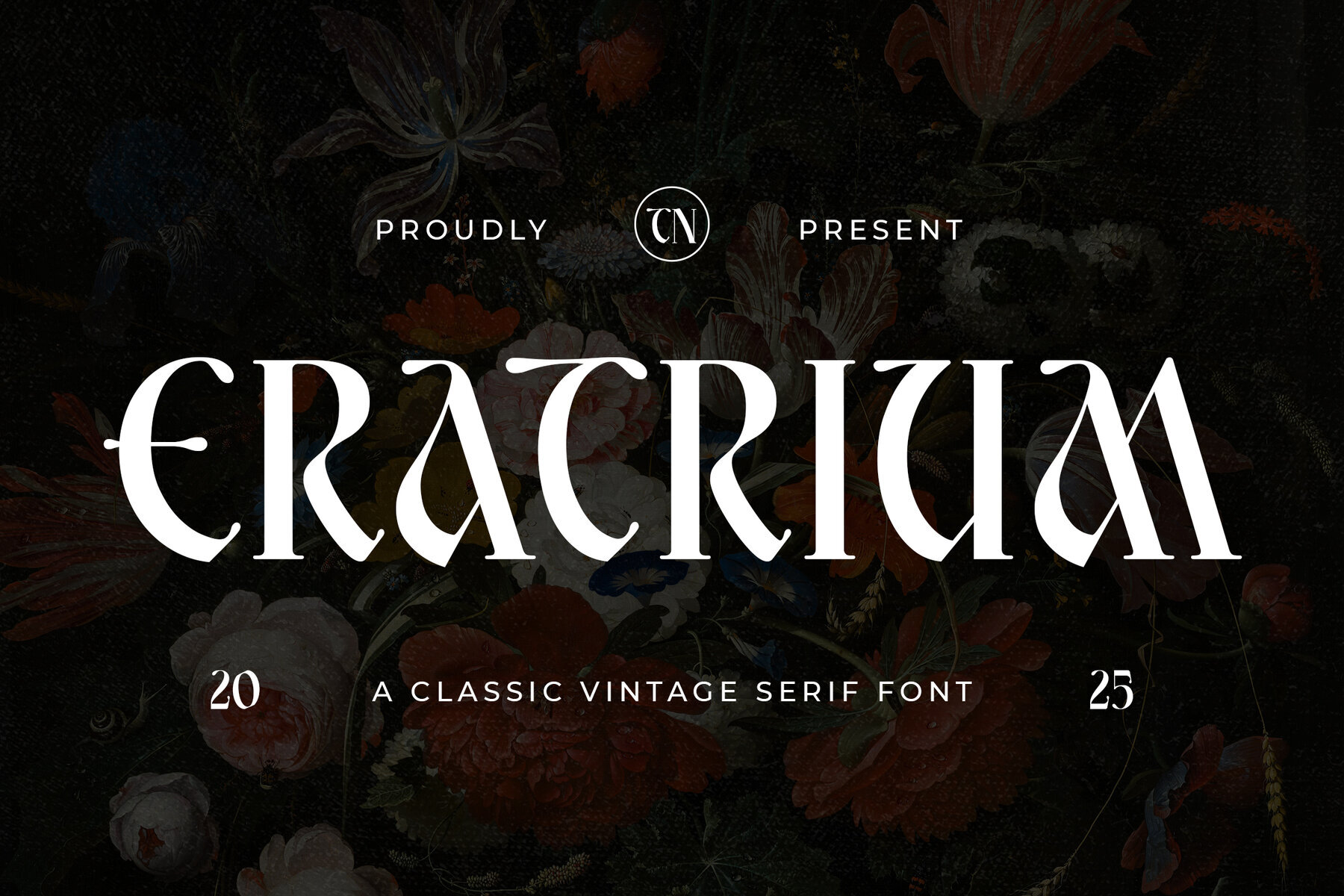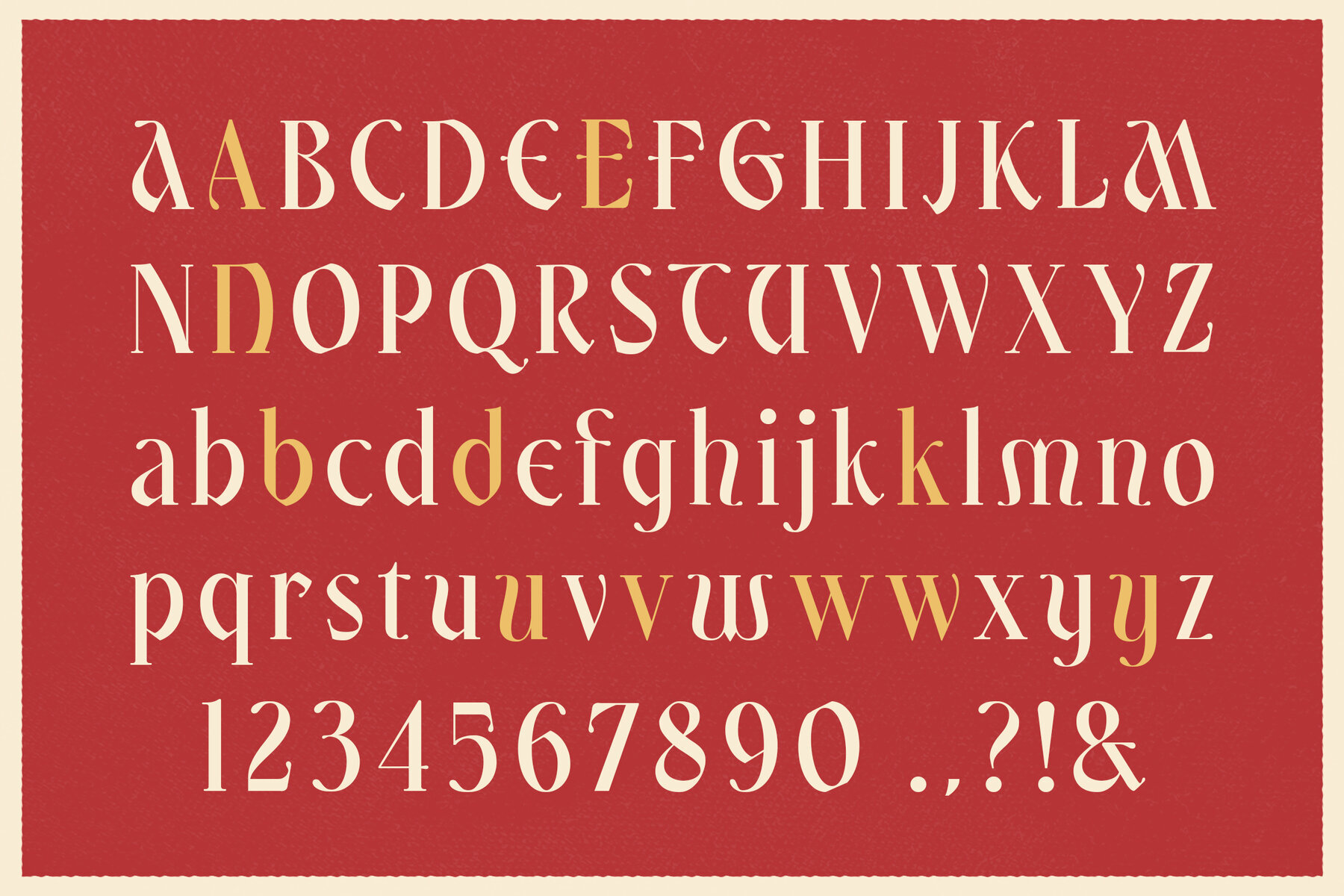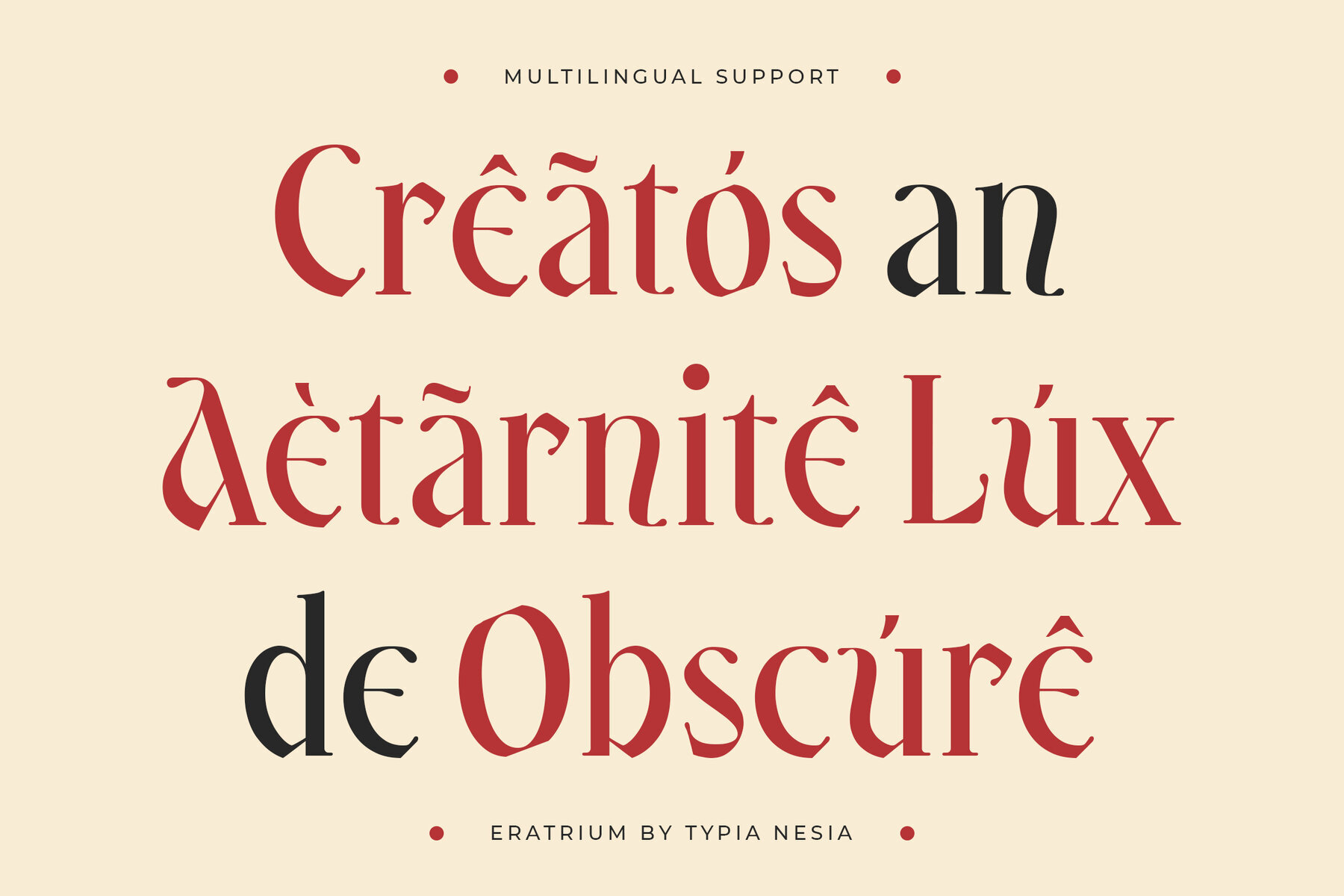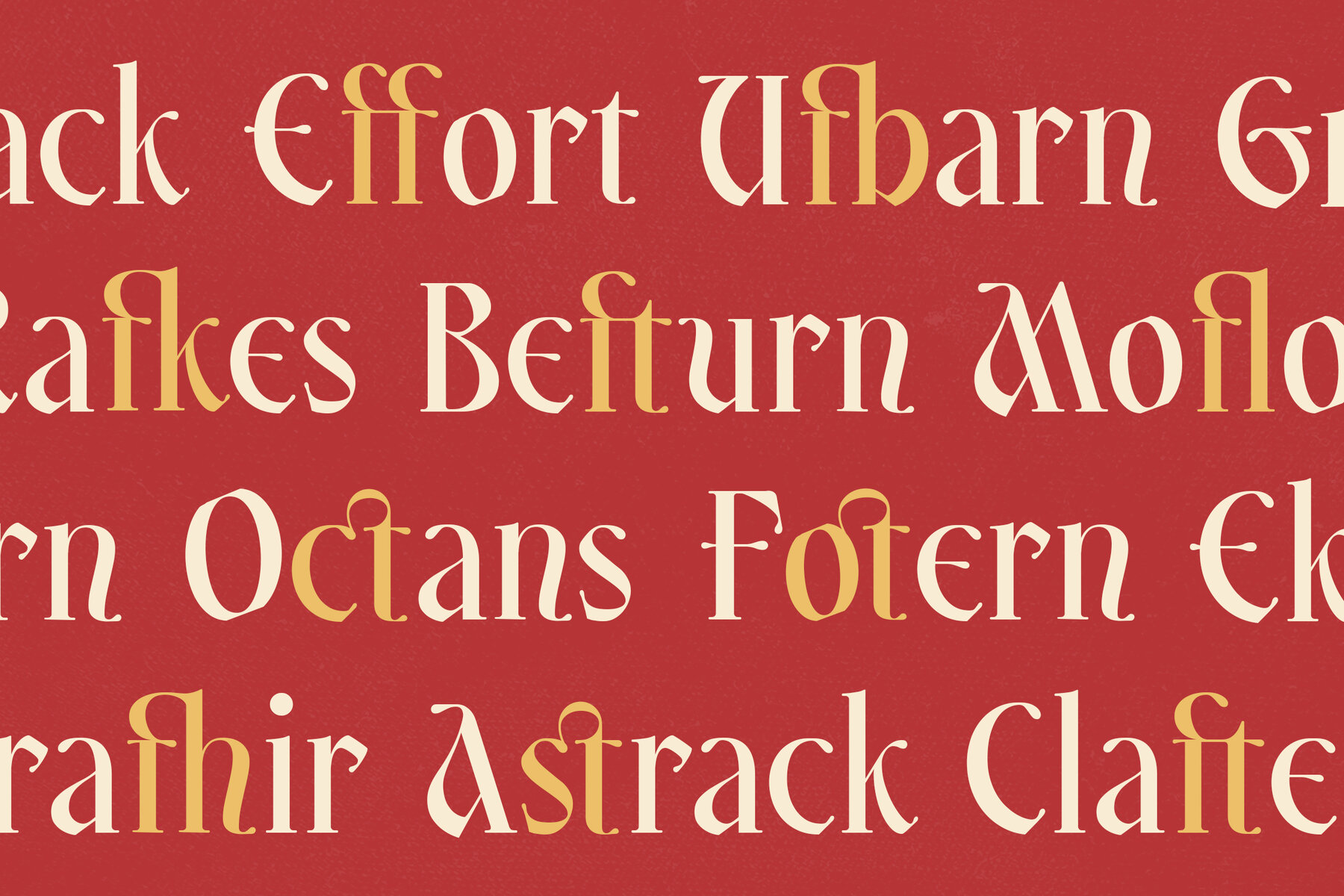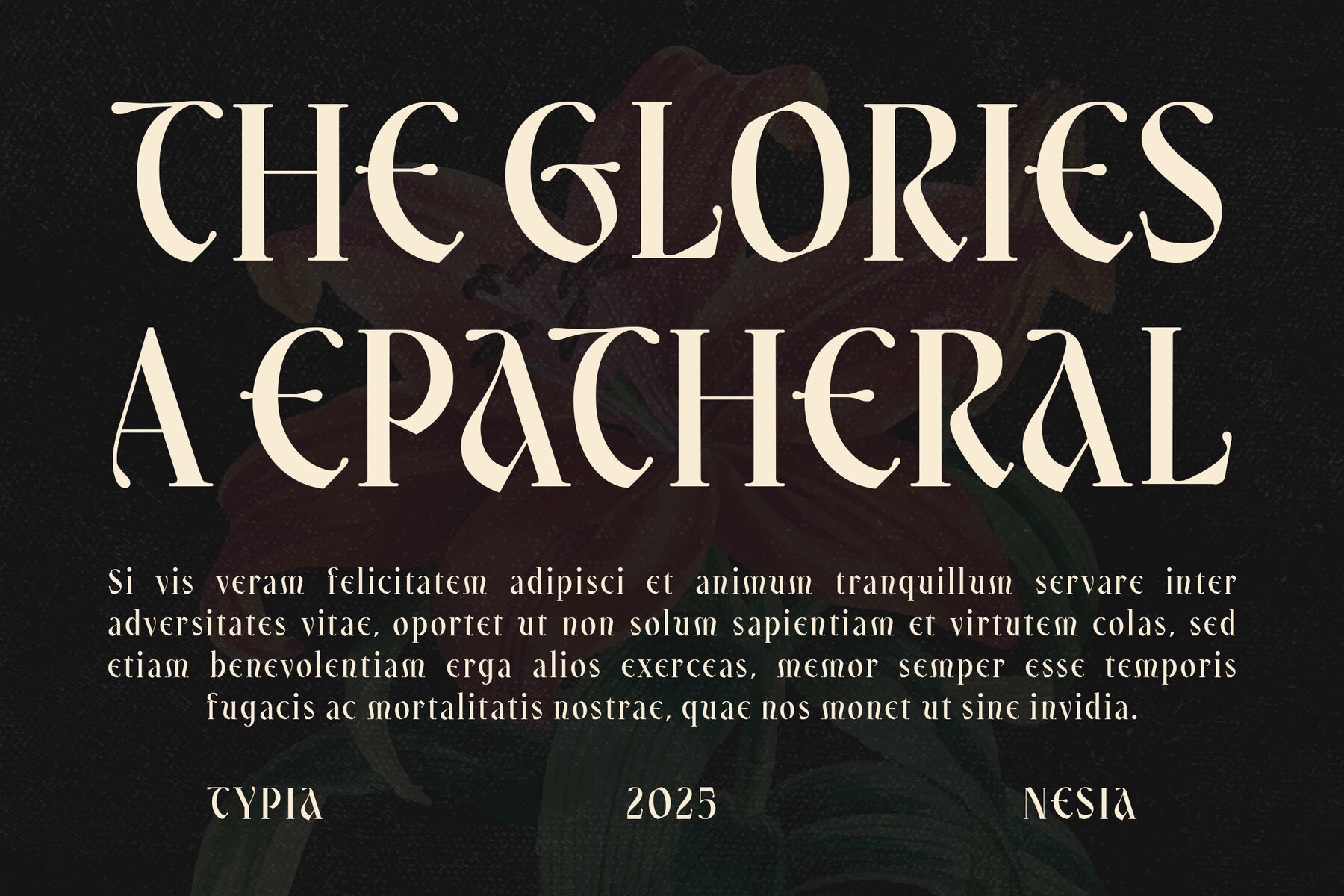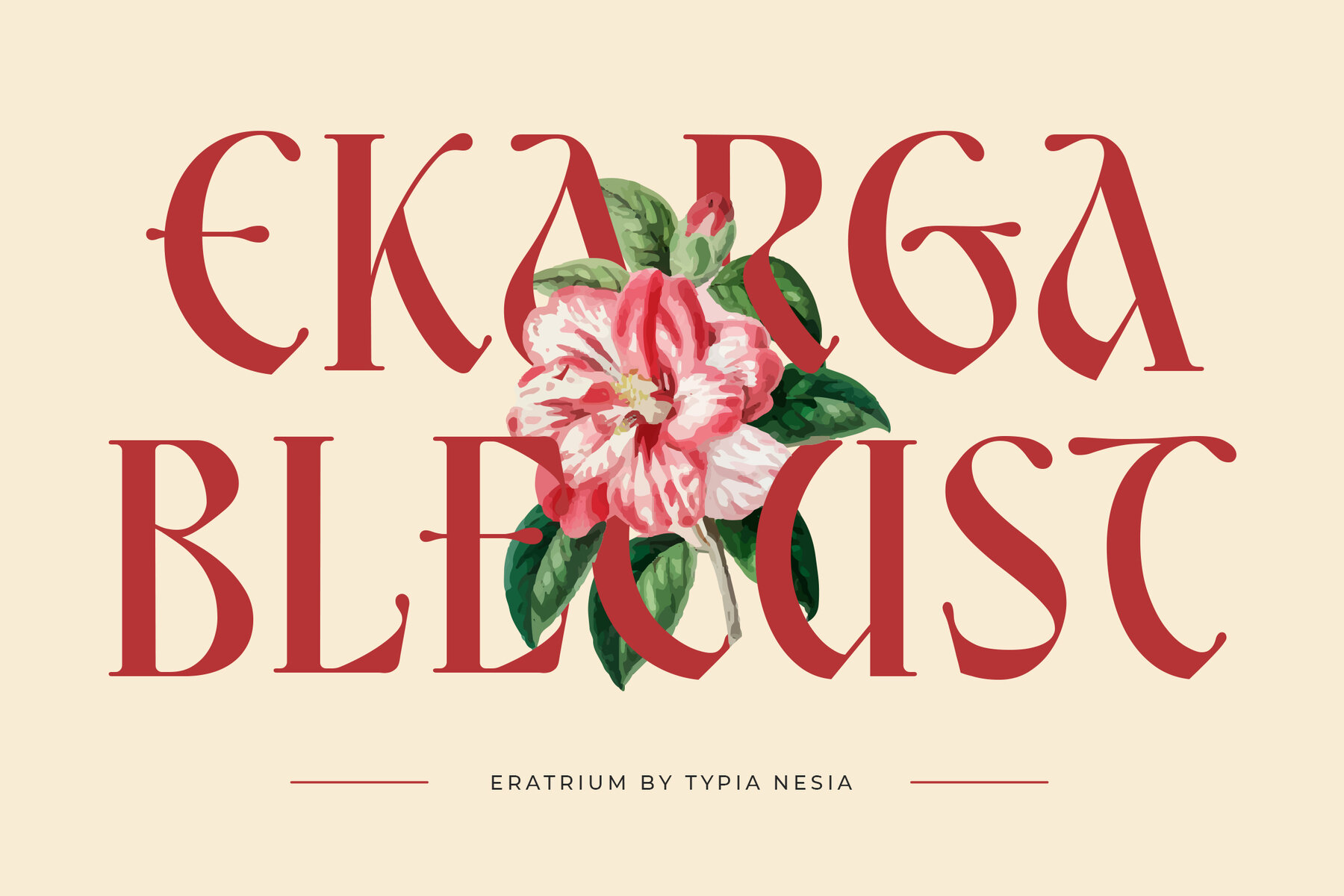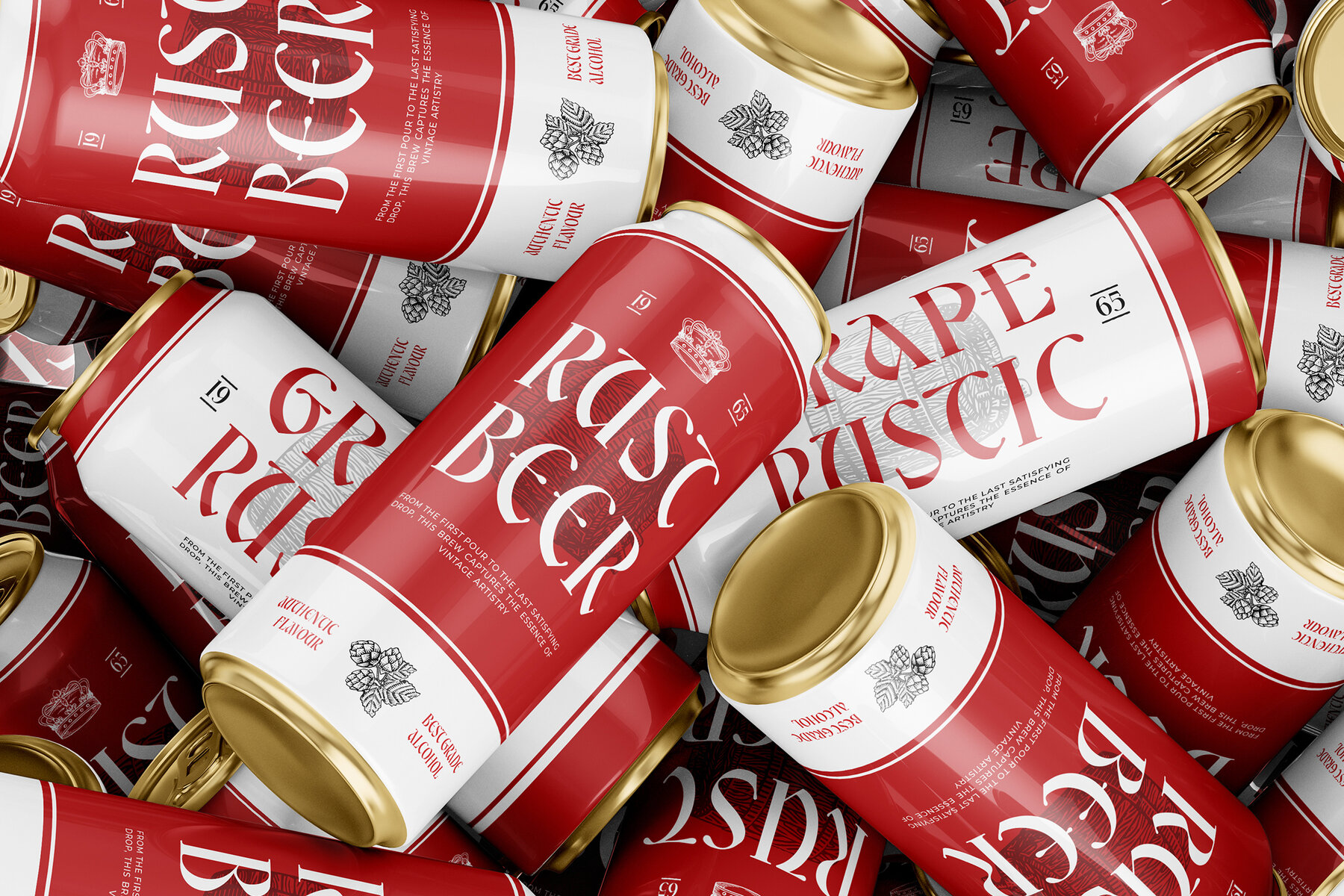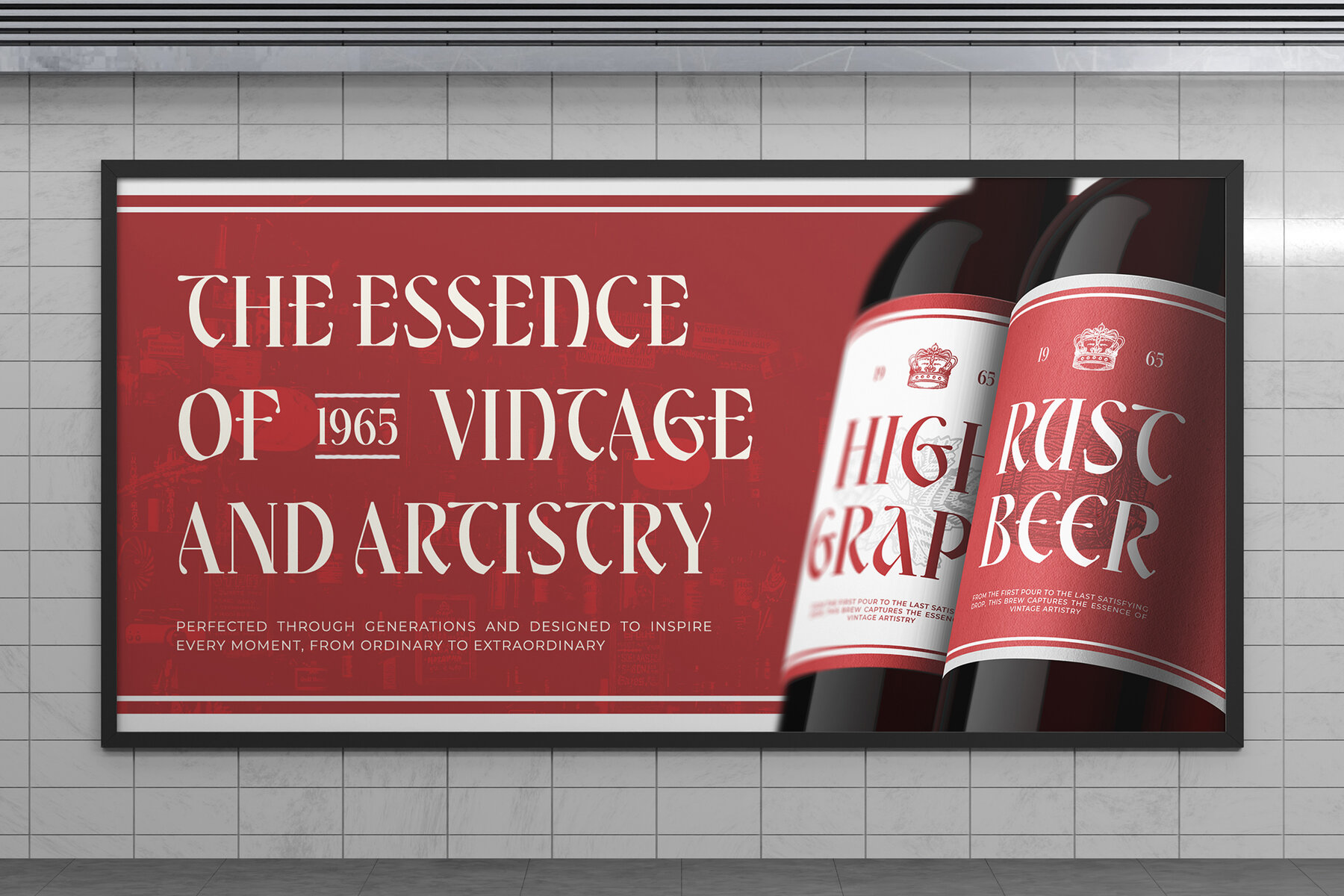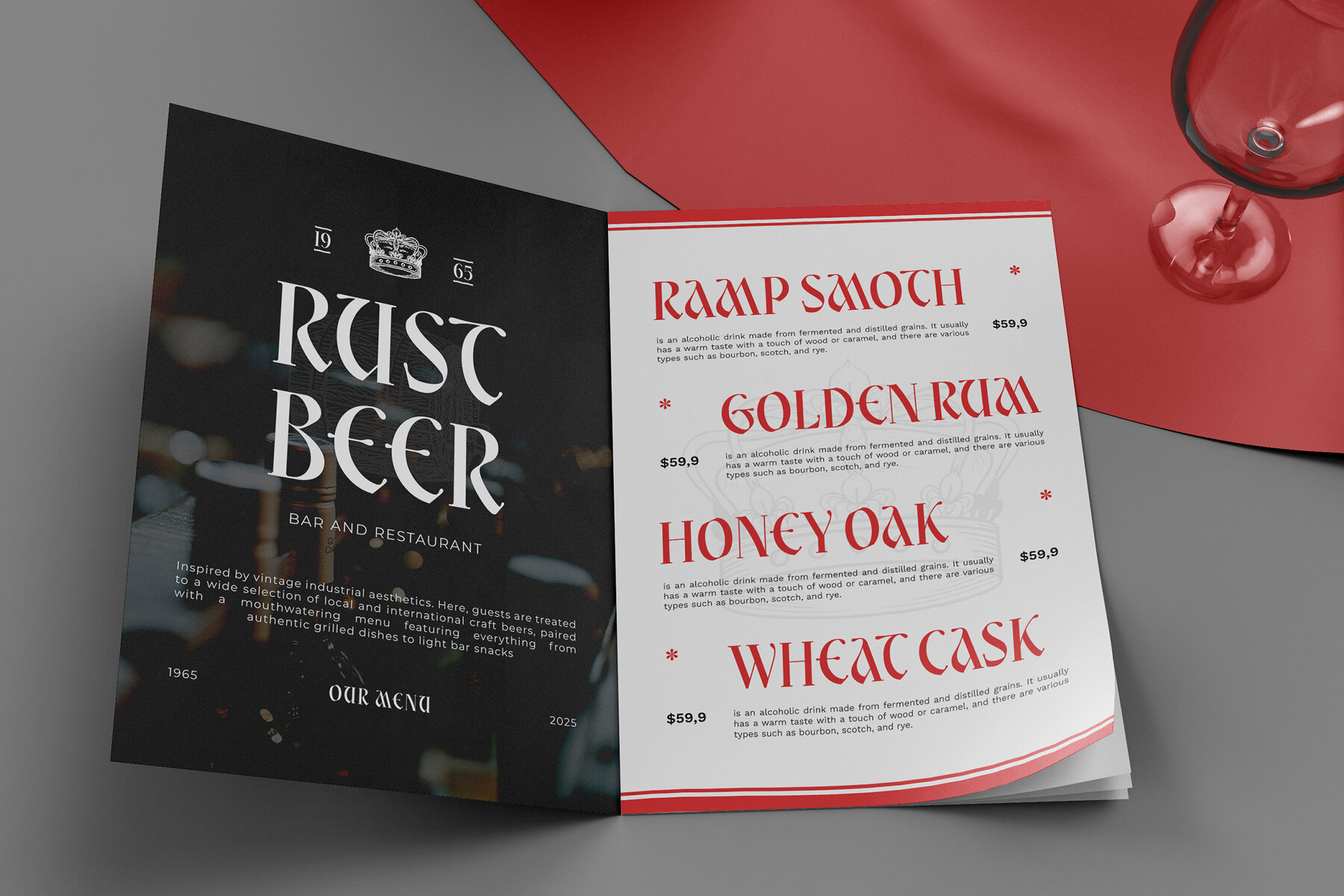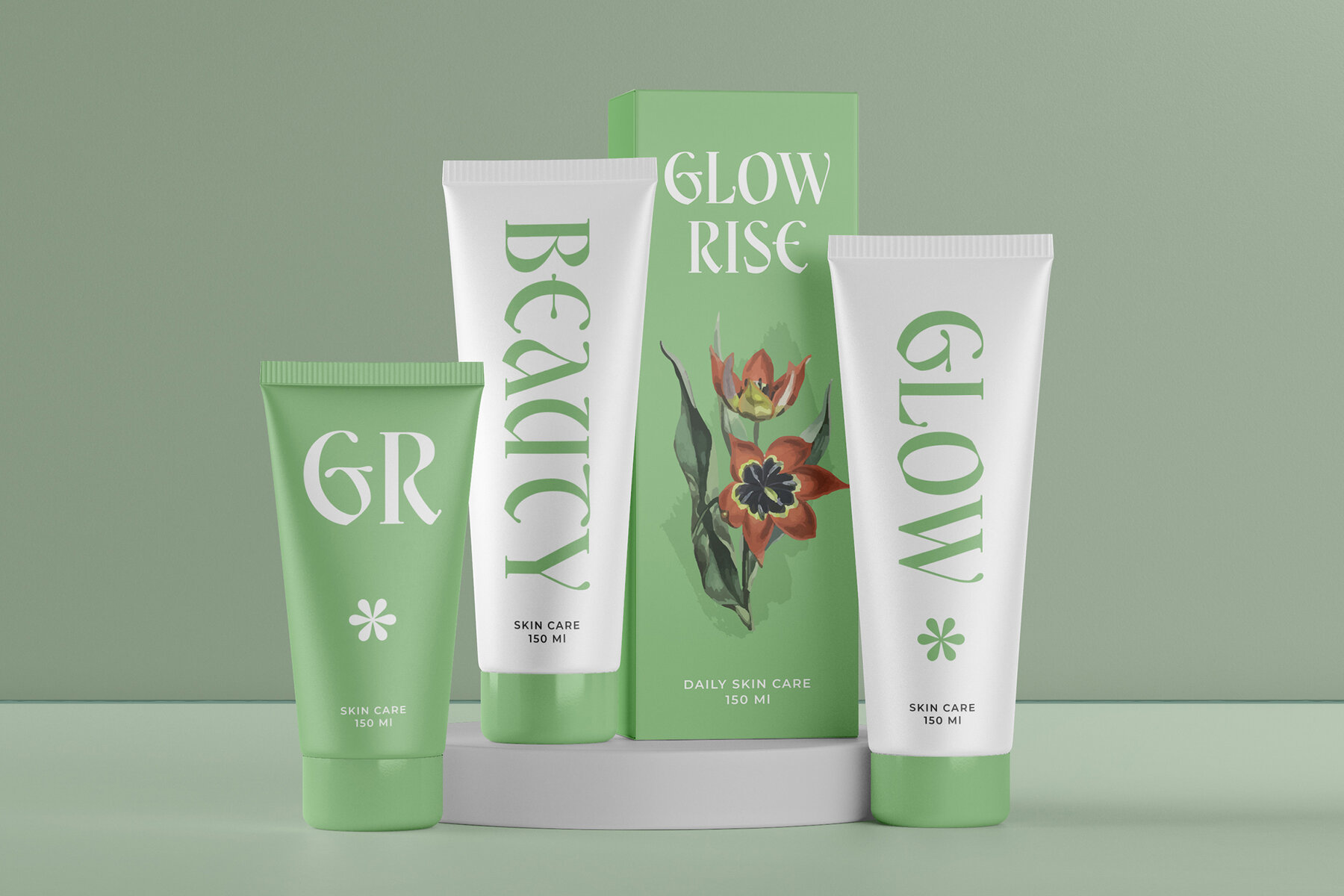
Eratrium Font
Eratrium Regular
Eratrium is a beautifully crafted Classic Vintage Serif font that embodies timeless elegance and beauty. With its refined serifs and Fantasy charm, Eratrium blends classic typography with a touch of modern versatility, making it a perfect choice for luxurious and nostalgic designs. Designed for elegance and versatility, Eratrium is perfect for designers and creatives seeking a vintage and classic serif font. This font brings an aura of sophistication and classic aesthetic to any creative work.Eratrium: Classic Vintage Serif with Modern Elegance